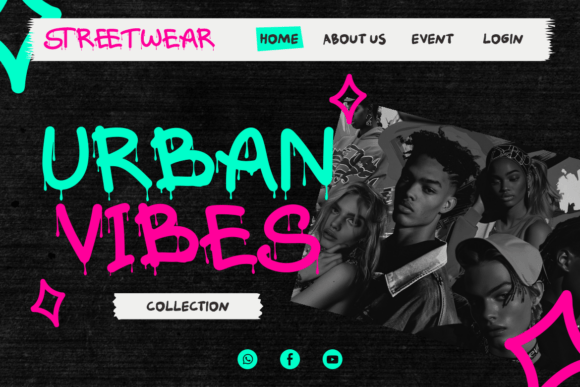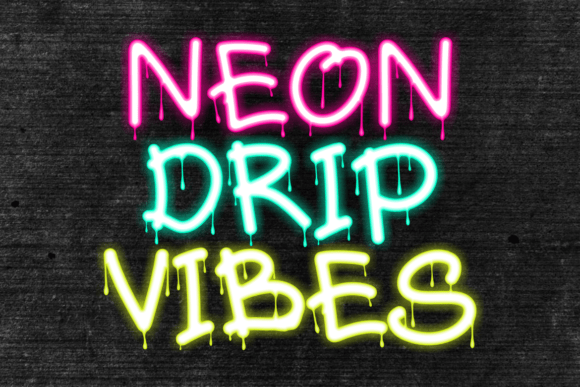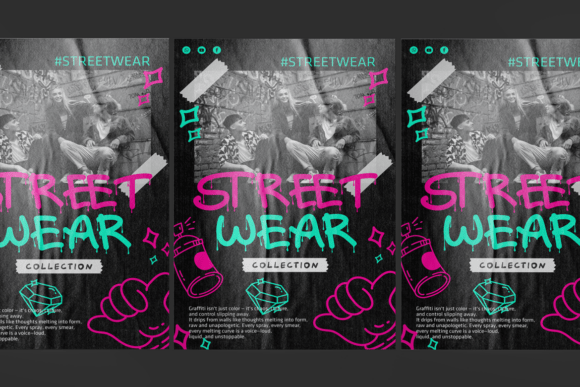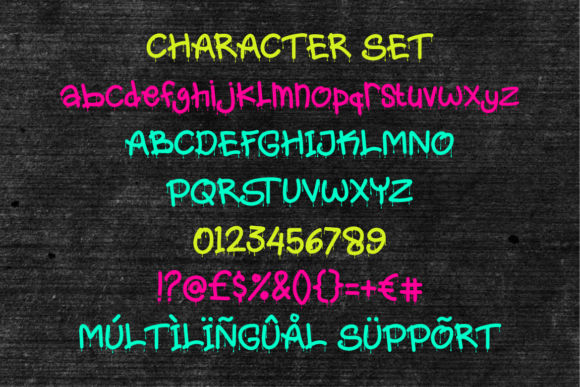
Introduction to Slime Drip Font
Introducing Slime Drip, a dynamic and contemporary monoline graffiti font that drips with style and attitude.
This font stands out with its fluid, melting strokes reminiscent of fresh graffiti paint slowly dripping down a vibrant urban wall Each character in the Slime Drip font is designed to mimic the spontaneous flow and energetic style of street art, enhanced by its bold monoline outline that ensures readability and visual impact.